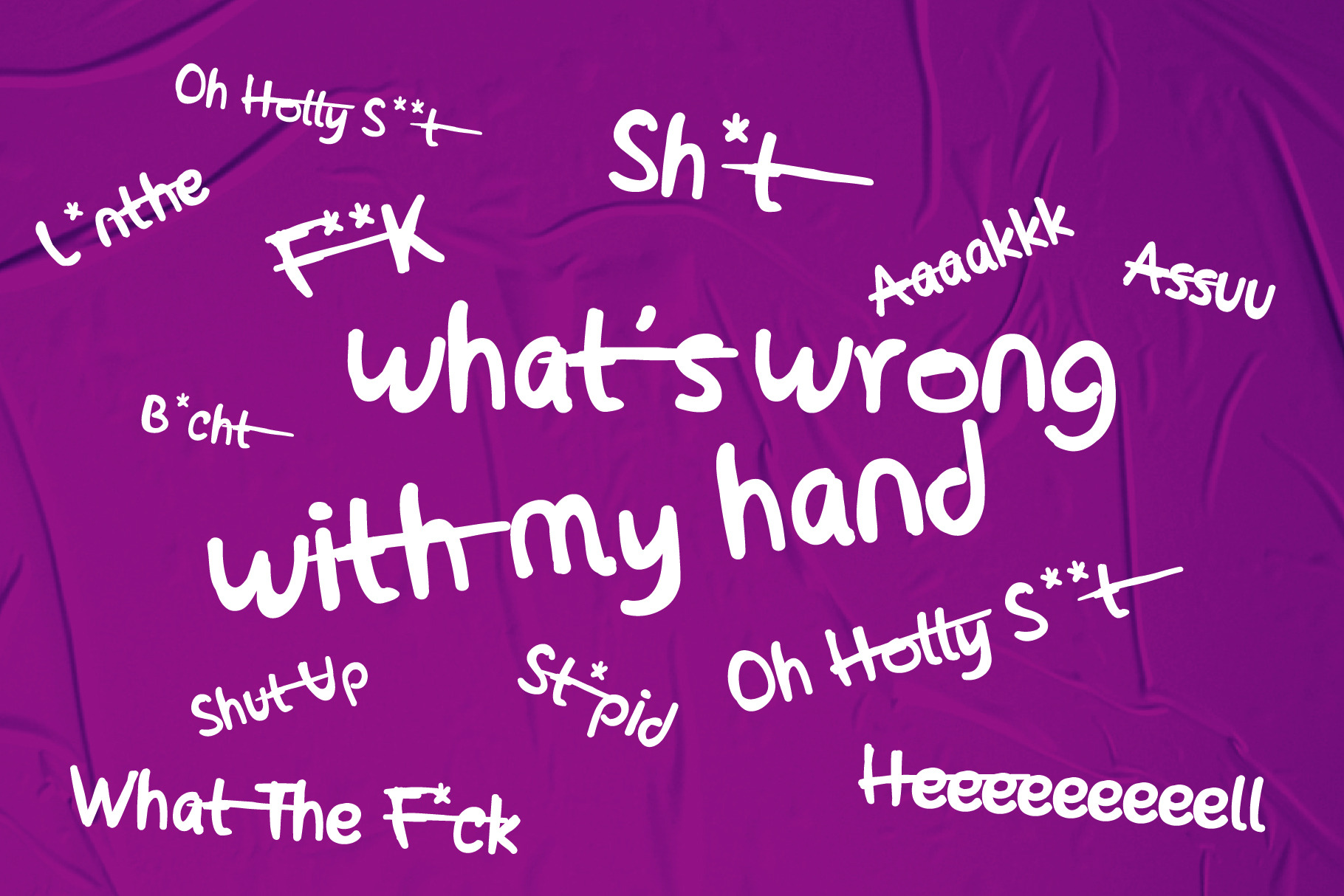
Oh My Hand Scrip Font
the name of this font is "OhMyHand", you surely know. Wrong handwriting, scribbling on writing to show someone emotional in facing life. I sold this font cheaply to show my annoyance towards WFH.